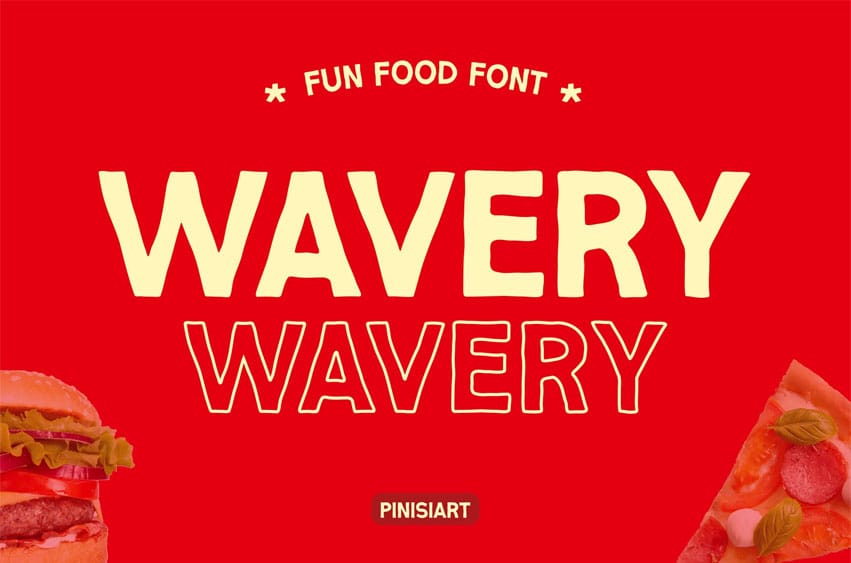
Wavery Font is a playful display typeface designed with a bold, food-inspired personality. Its solid all-caps forms give strength and impact, while its outline lowercase style adds a creative twist that feels fresh and expressive. With a geometric rhythm and balanced contrast, WAVERY radiates energetic, joyful, and appetizing vibes—perfect for designs that demand attention. Its letterforms bring a lively, bouncy flow that pairs naturally with branding for cafes, street food stalls, fast-food chains, or vibrant product packaging.
In today’s crowded marketplace, standing out visually is essential. WAVERY works seamlessly for branding, menu design, posters, packaging, and social media content. Its bold structure ensures high readability from a distance, while its outline lowercase twist adds a quirky and stylish edge that feels both modern and approachable. Whether you’re designing a pizza shop menu, a coffee promotion, or bold packaging for retail, WAVERY ensures your message feels energetic, fresh, and unforgettable.
Key Features
- Bold & Playful: Eye-catching all-caps design with expressive outline lowercase.
- Versatile Use: Perfect for food branding, packaging, street ads, menus, and promotional posters.
- Energetic Flow: Rounded geometric forms bring joy and dynamic rhythm to any layout.
- Attention-Grabber: Works beautifully in headlines, logos, and short, impactful messages.
- Modern Yet Approachable: Combines structured boldness with a casual, friendly vibe.